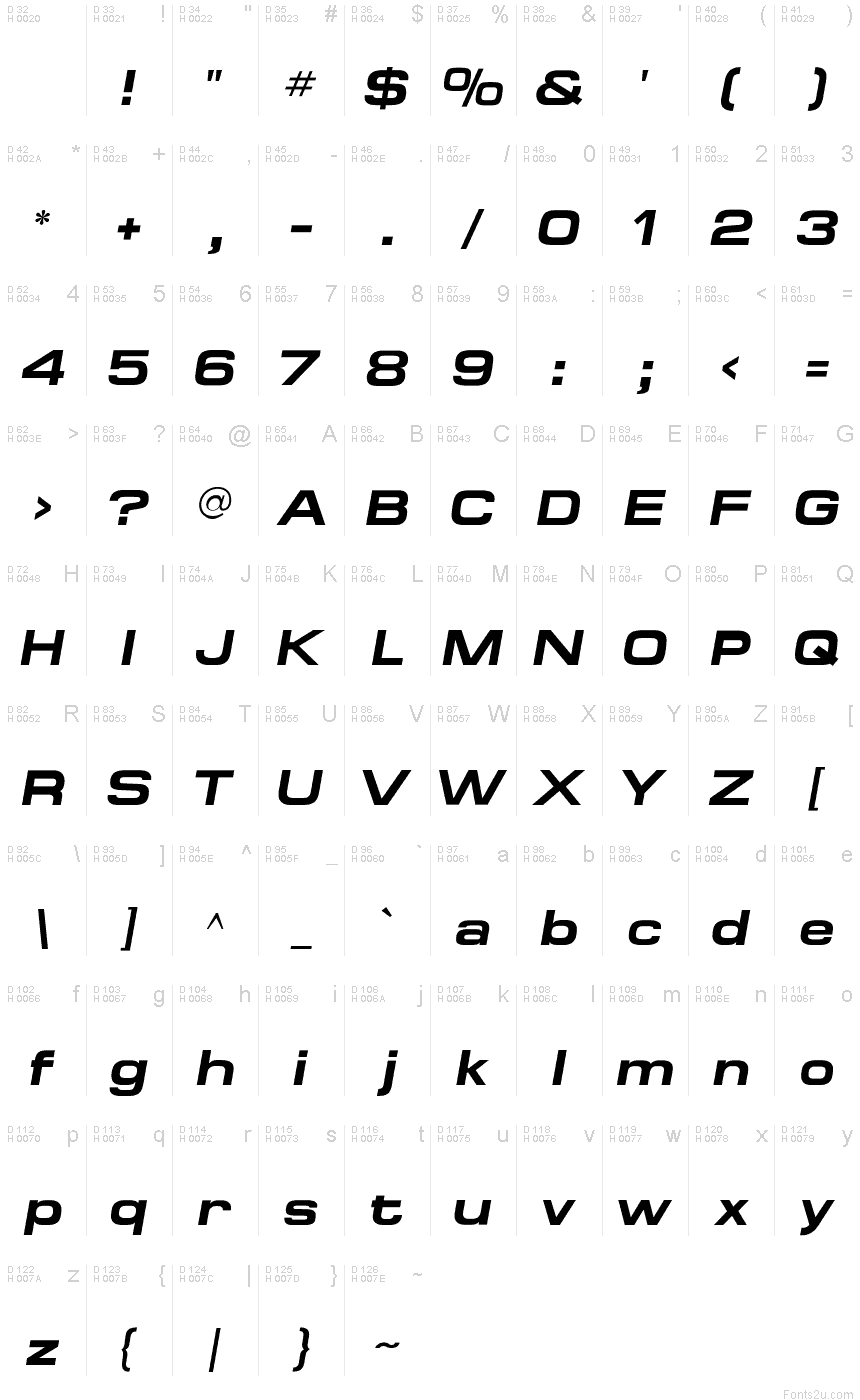
MicroExtendFLF-BoldItalic
Micro Extend Bold Italic by Richard A. Ware is a free extended techno sans serif with a forceful forward slant and strongly emphasized low-slung proportions. Smooth curves and cut joins make the letters look machined.
It brings immediate speed to motorsport branding, but its clean industrial shape also suits software packaging, electronic music artwork, and futuristic game graphics. The wide silhouettes can echo vehicle bodywork, interface panels, and other streamlined imagery, turning the lettering into part of the technical setting itself.